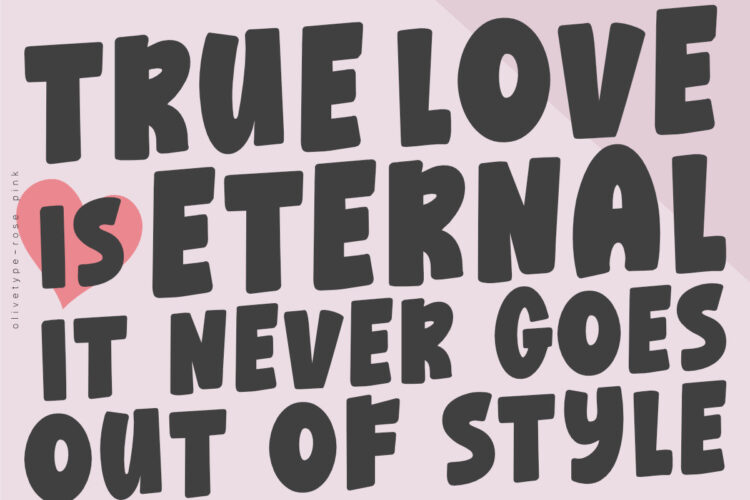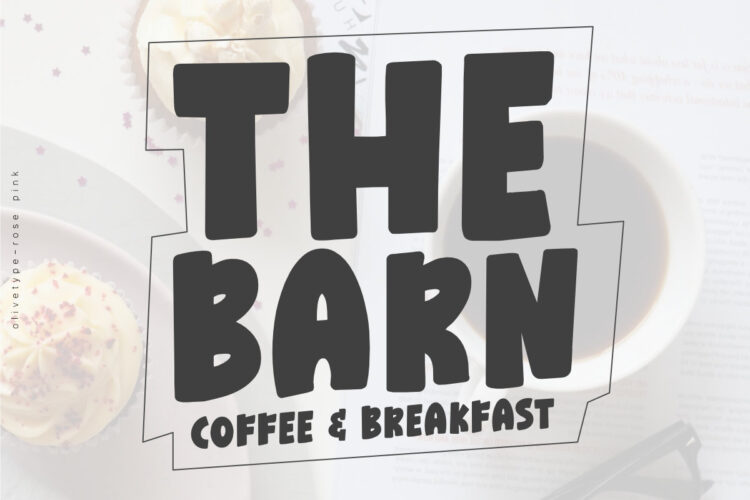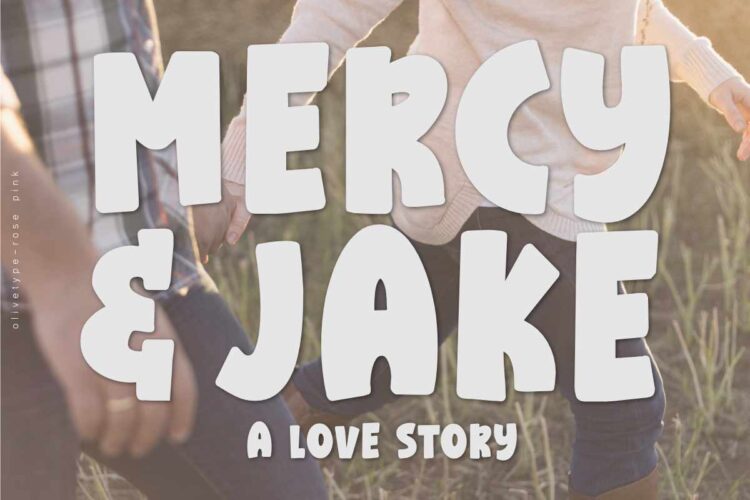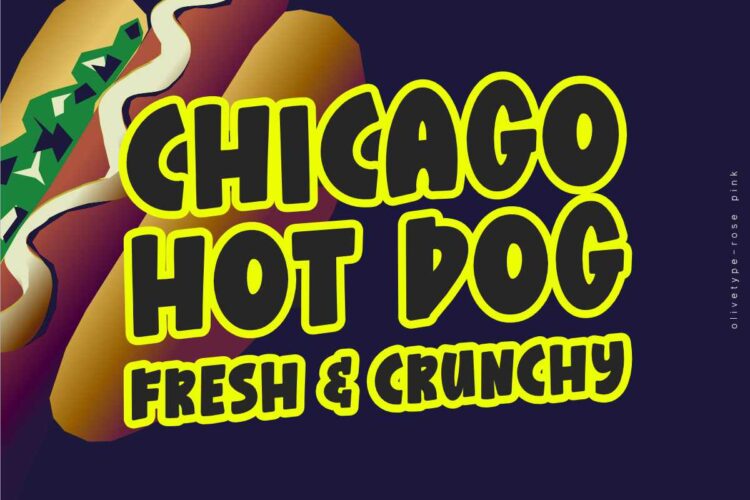
Introducing Rose Pink, a fun and exciting font suitable for any creative project. From product packaging to logos, this font is the perfect way to express your creativity with a bold style and playful look. The whimsical and flowing curves of this font also can help create a sense of lightheartedness in your design. project.